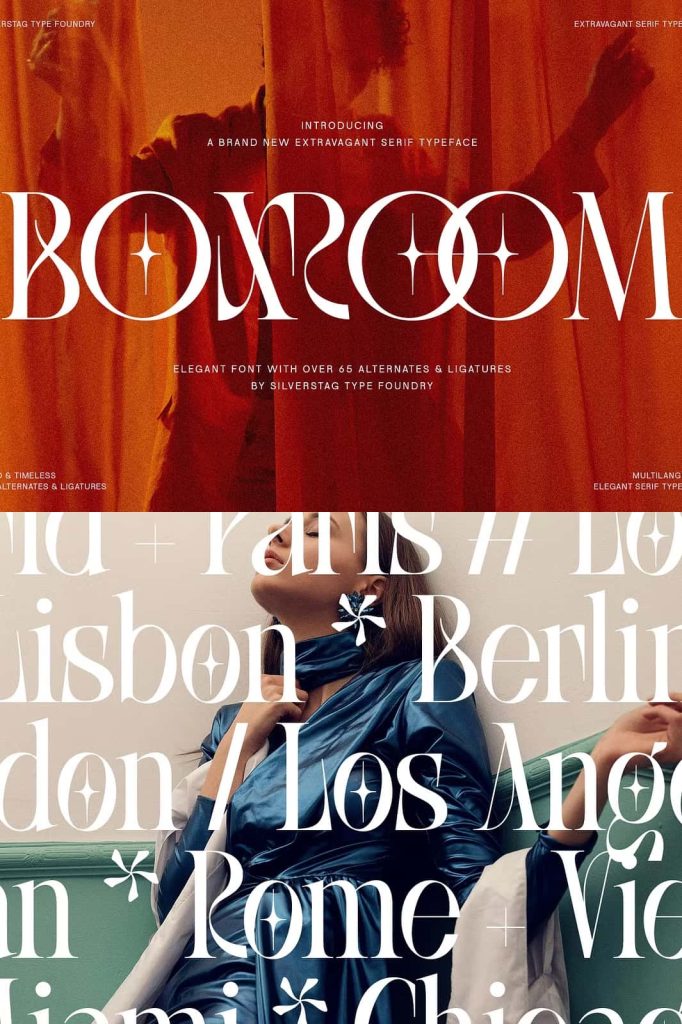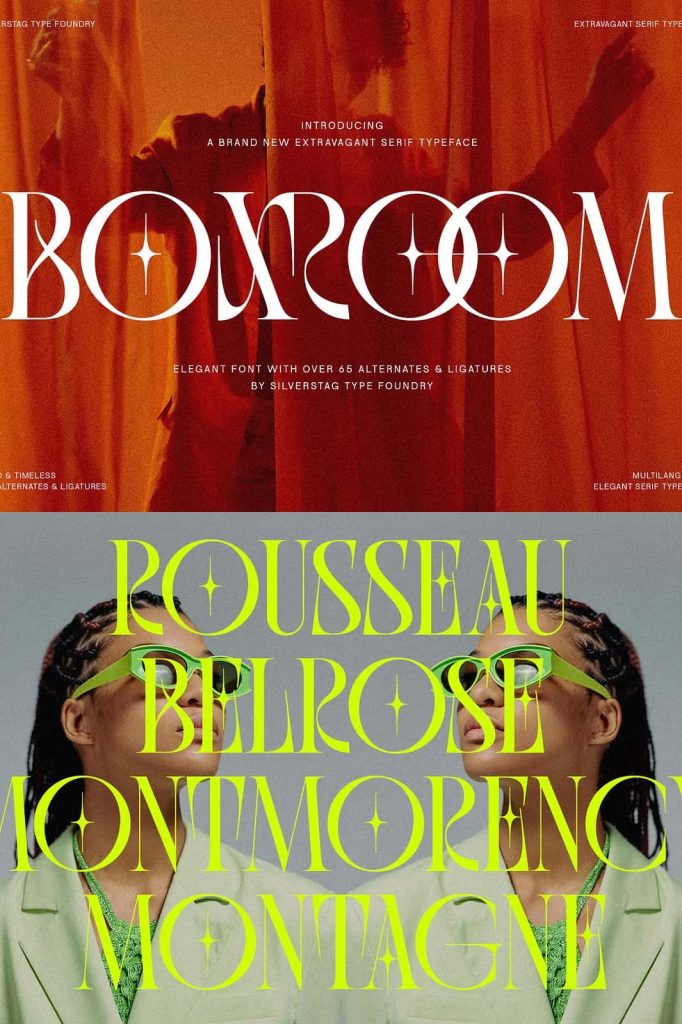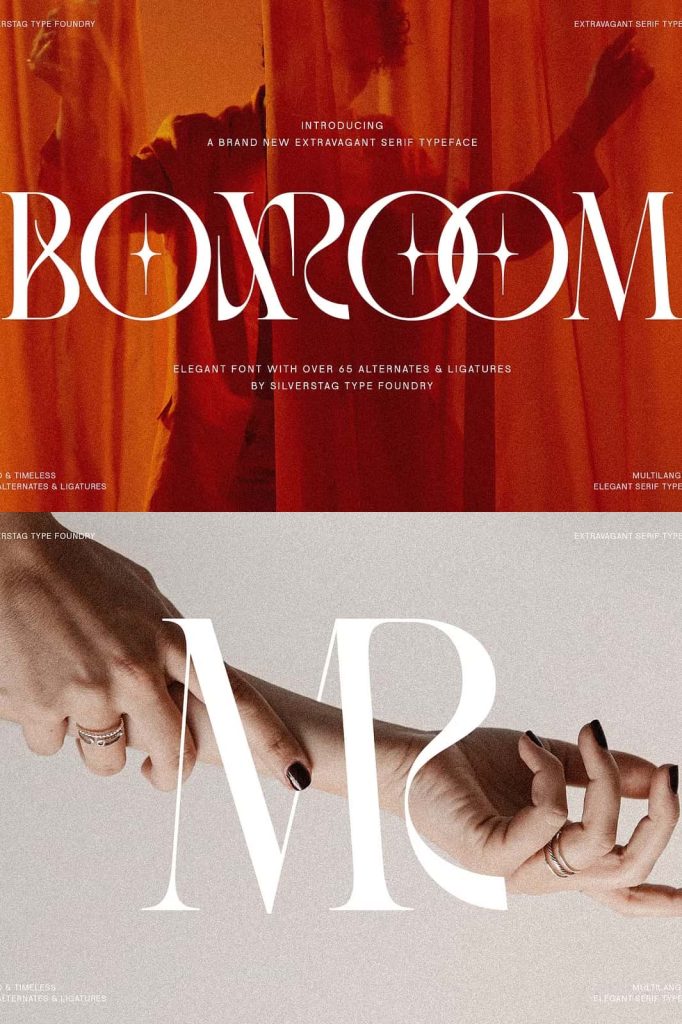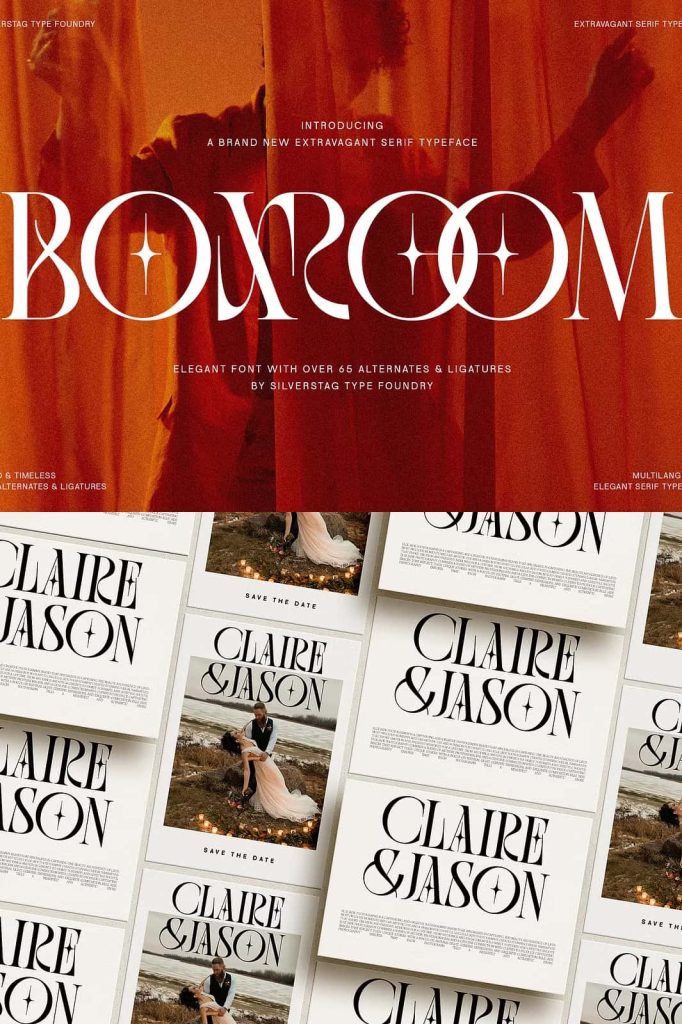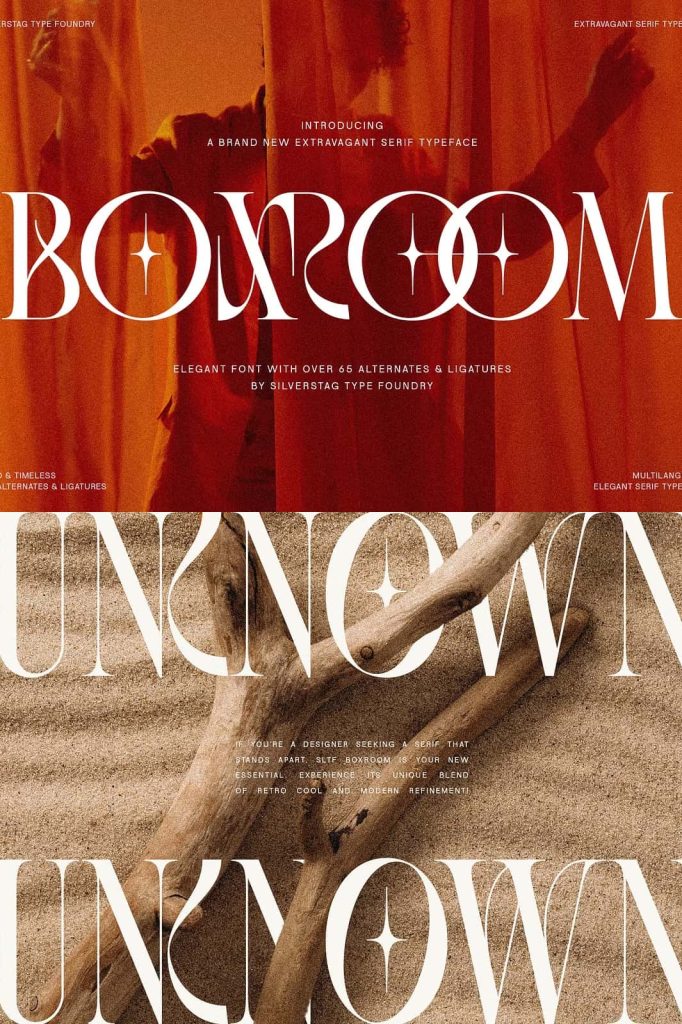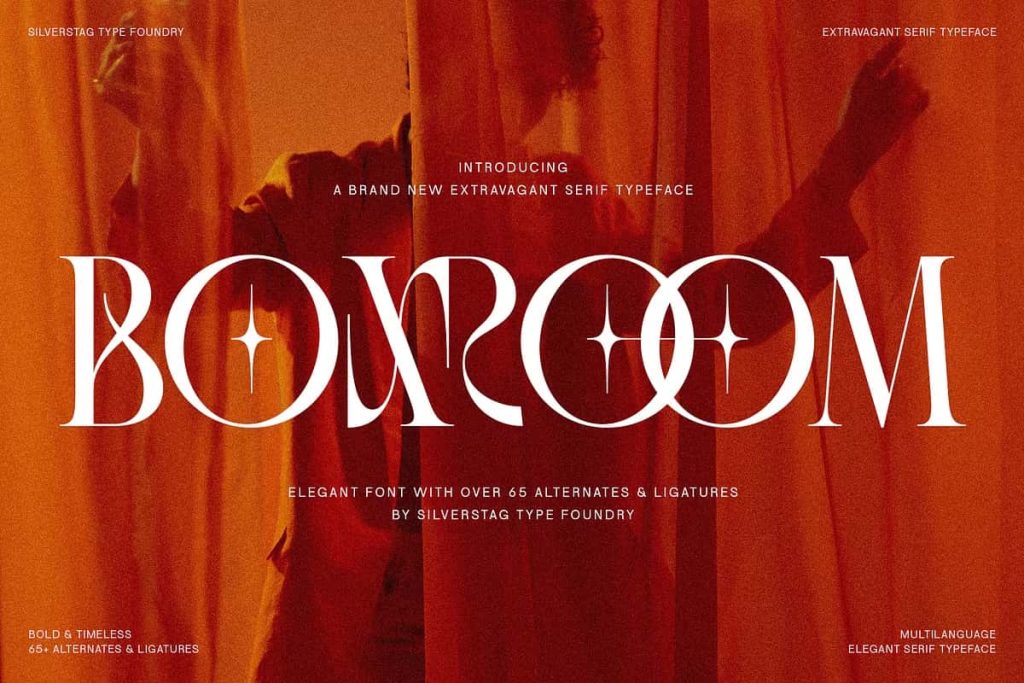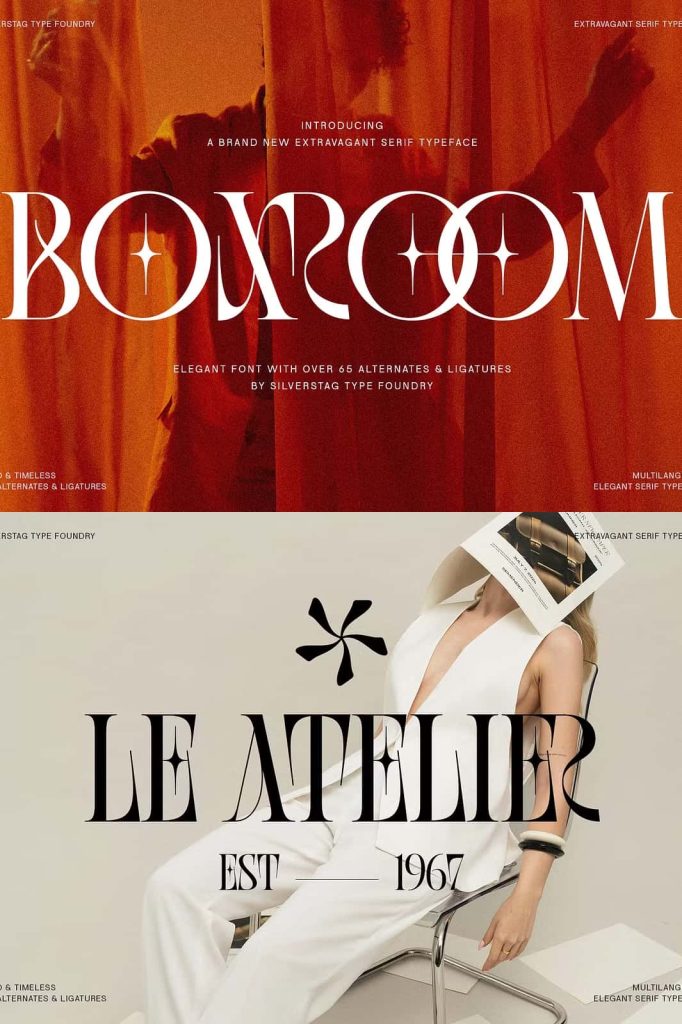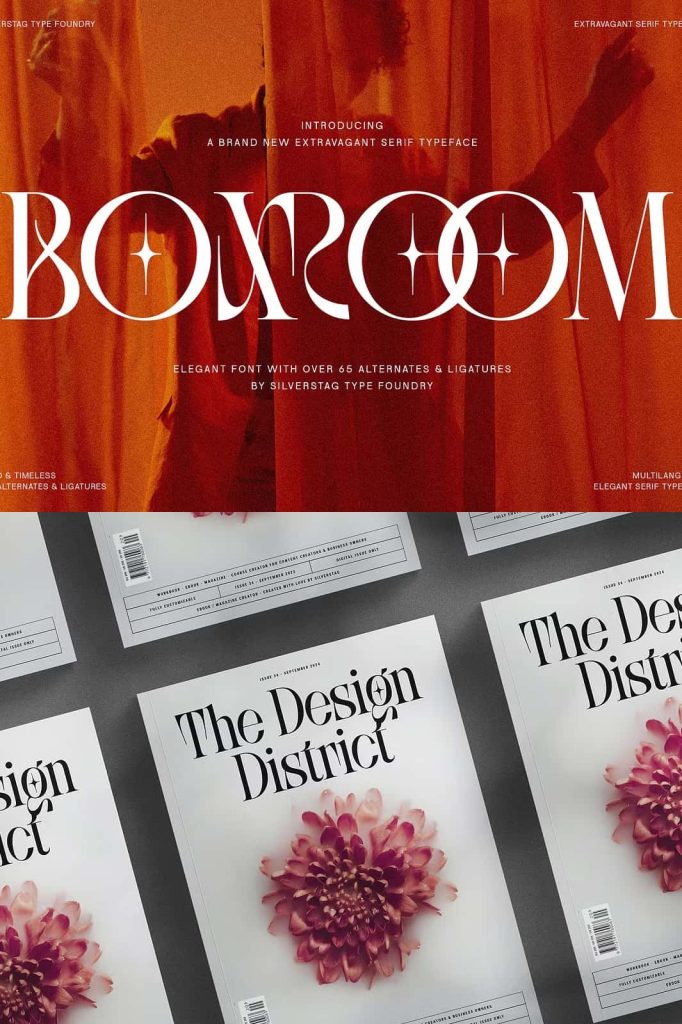
Introducing BOXROOM, a typeface that dares to be different. This isn’t your average serif; it’s a bold, expressive statement piece that’s ready to elevate your designs with its unique blend of vintage elegance and modern flair.